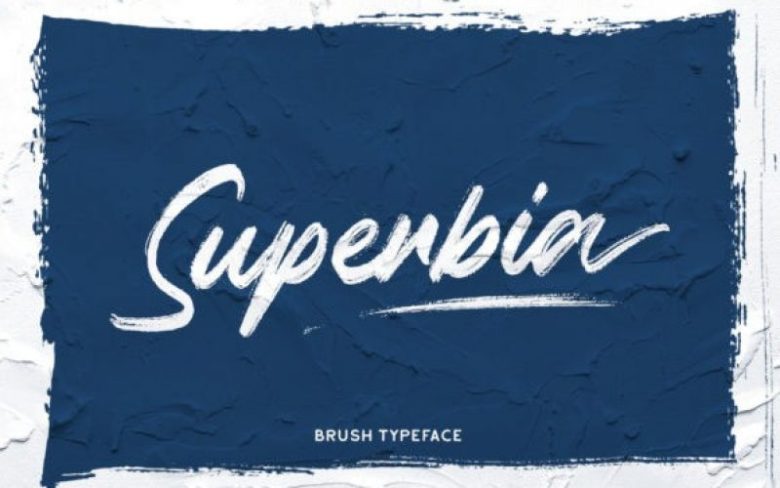
Superbia Font
Superbia Brush Font is a brush script typeface created by Rillatype with stunning swashes, created using a brush pen. This font is perfect for branding projects, logo, social media posts, advertisements, product packaging, product designs, label, and any projects that you work on.